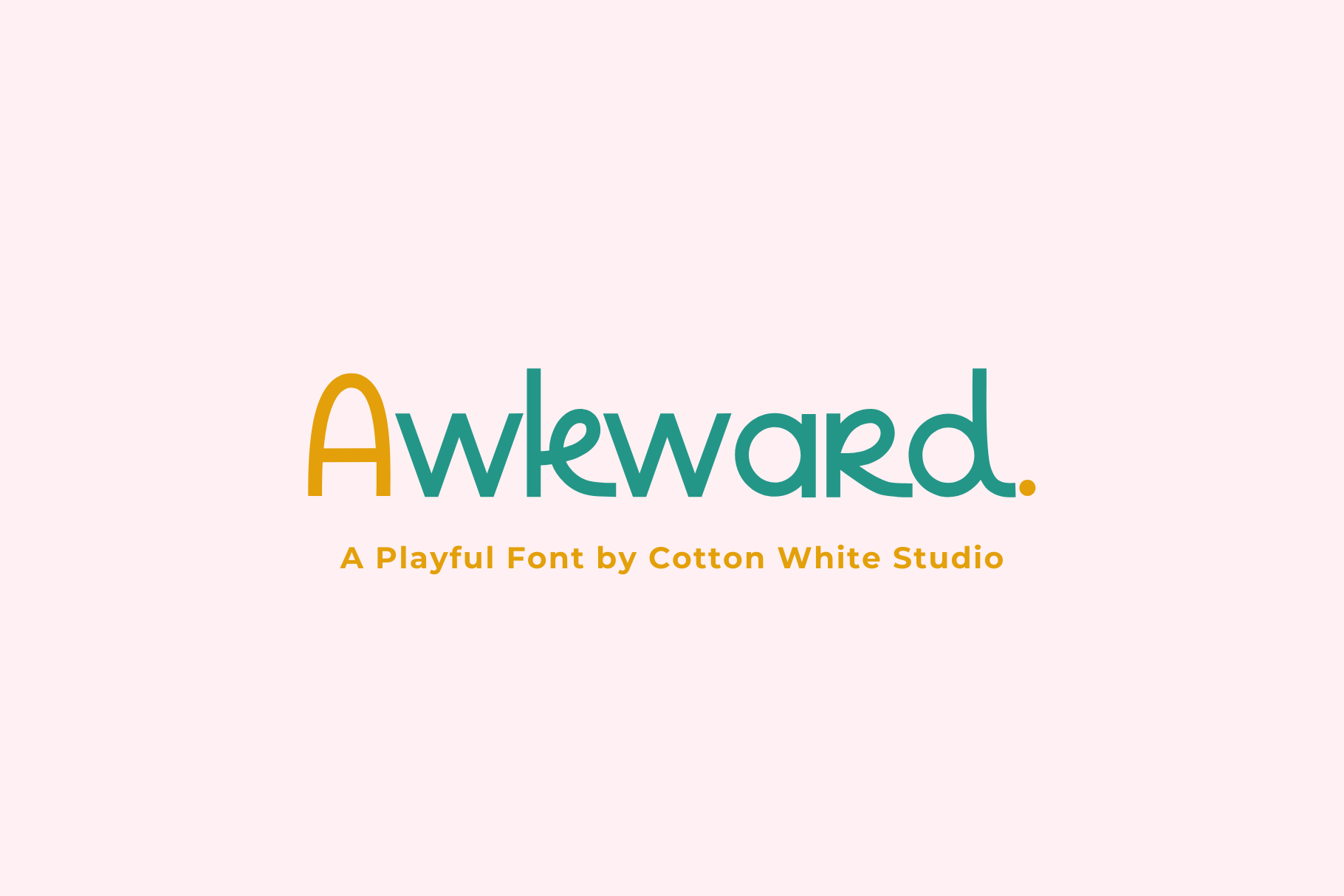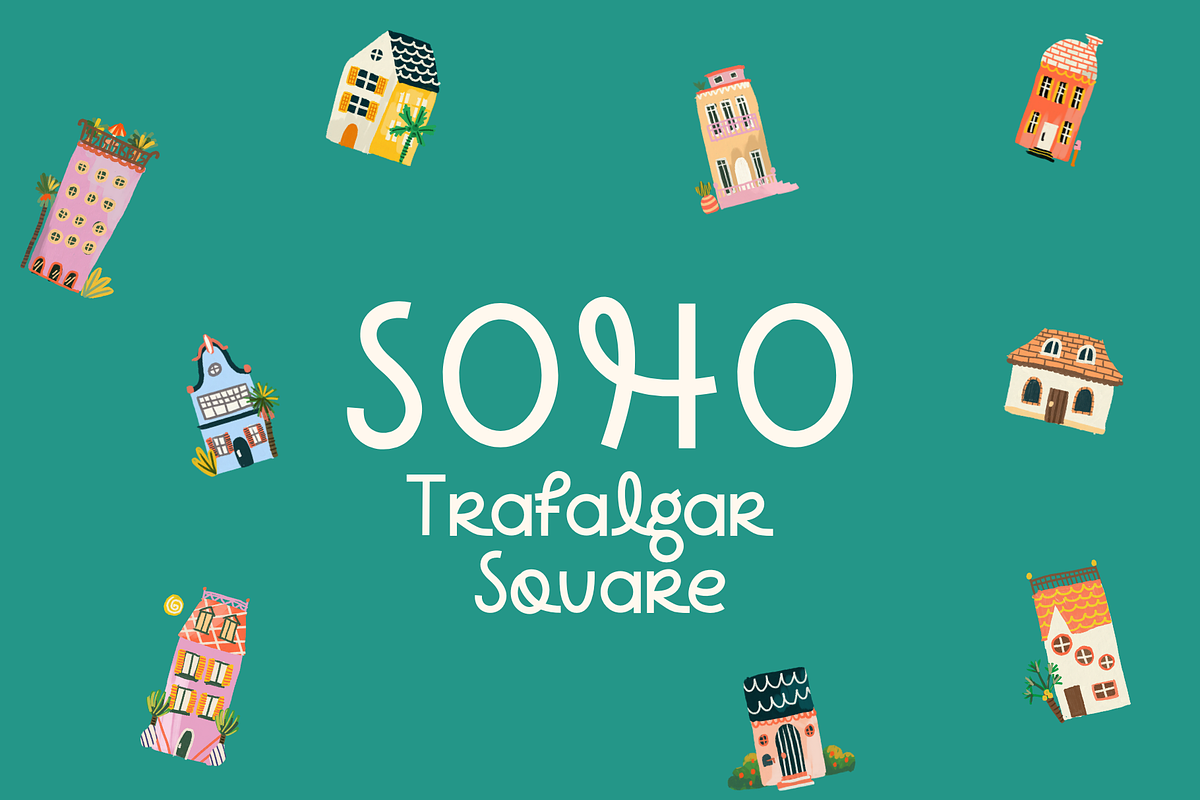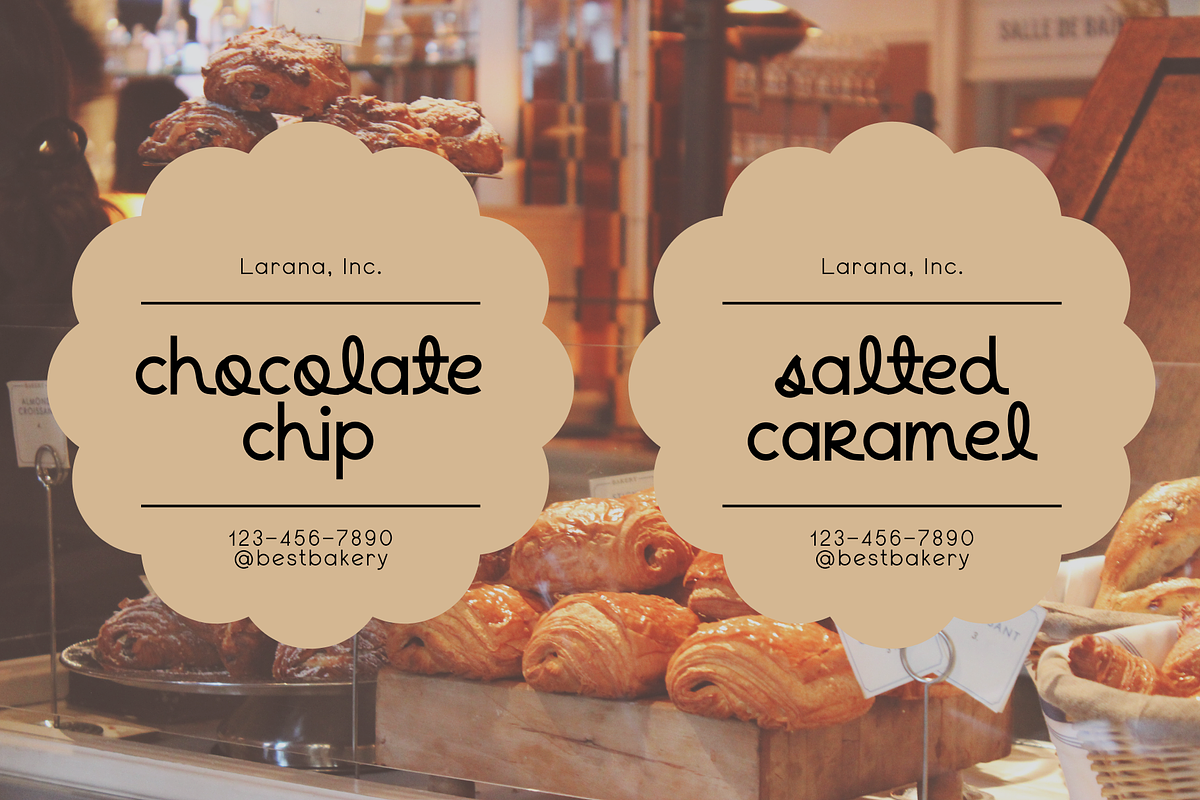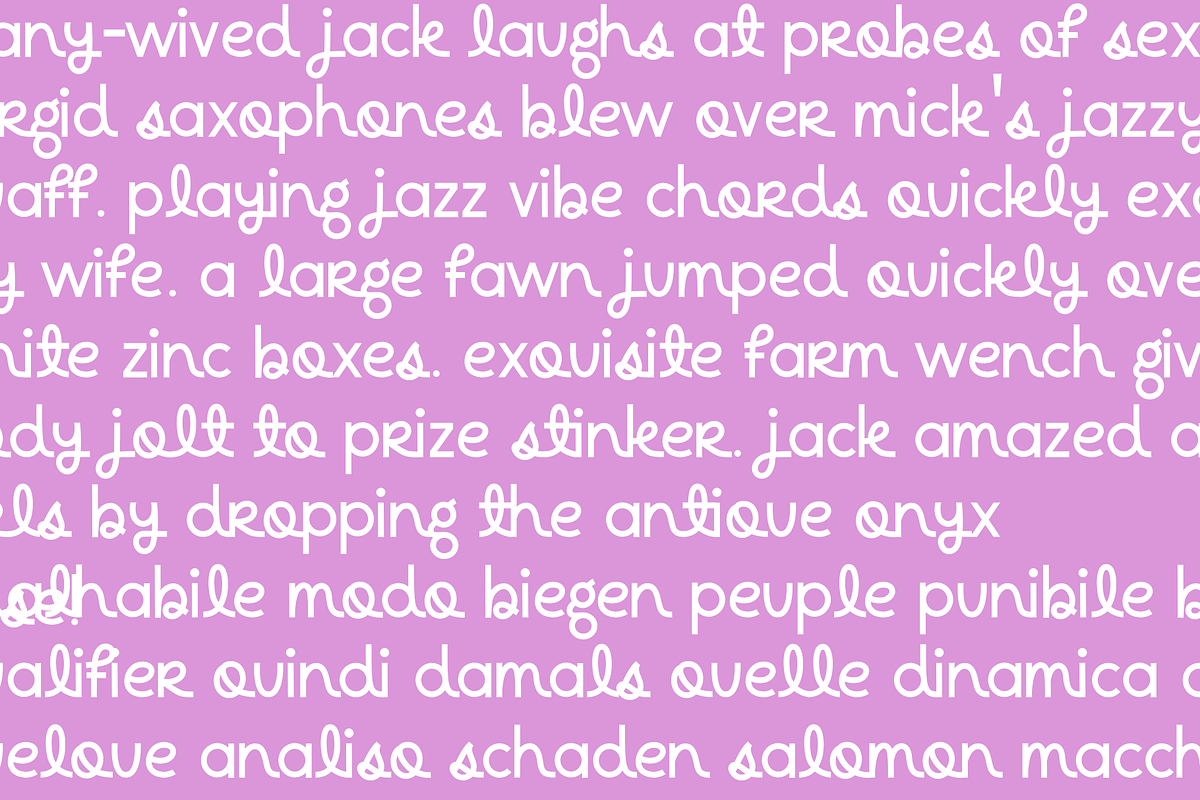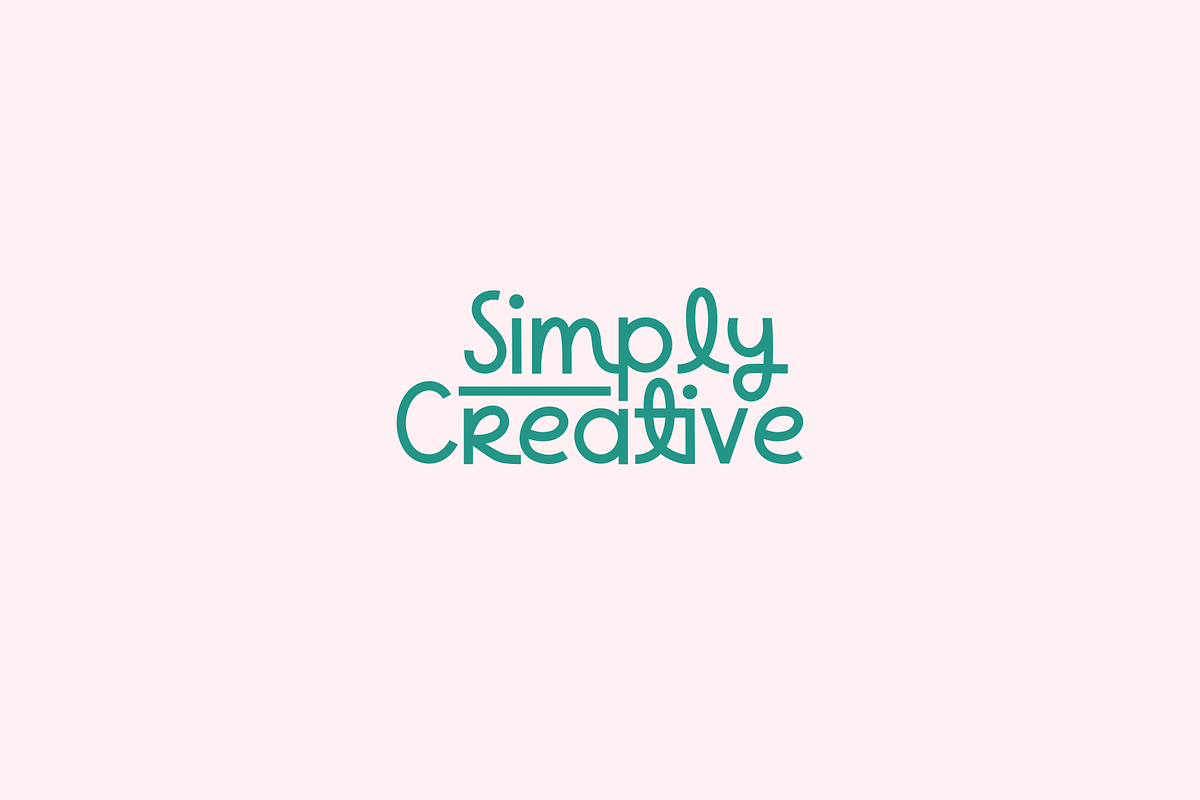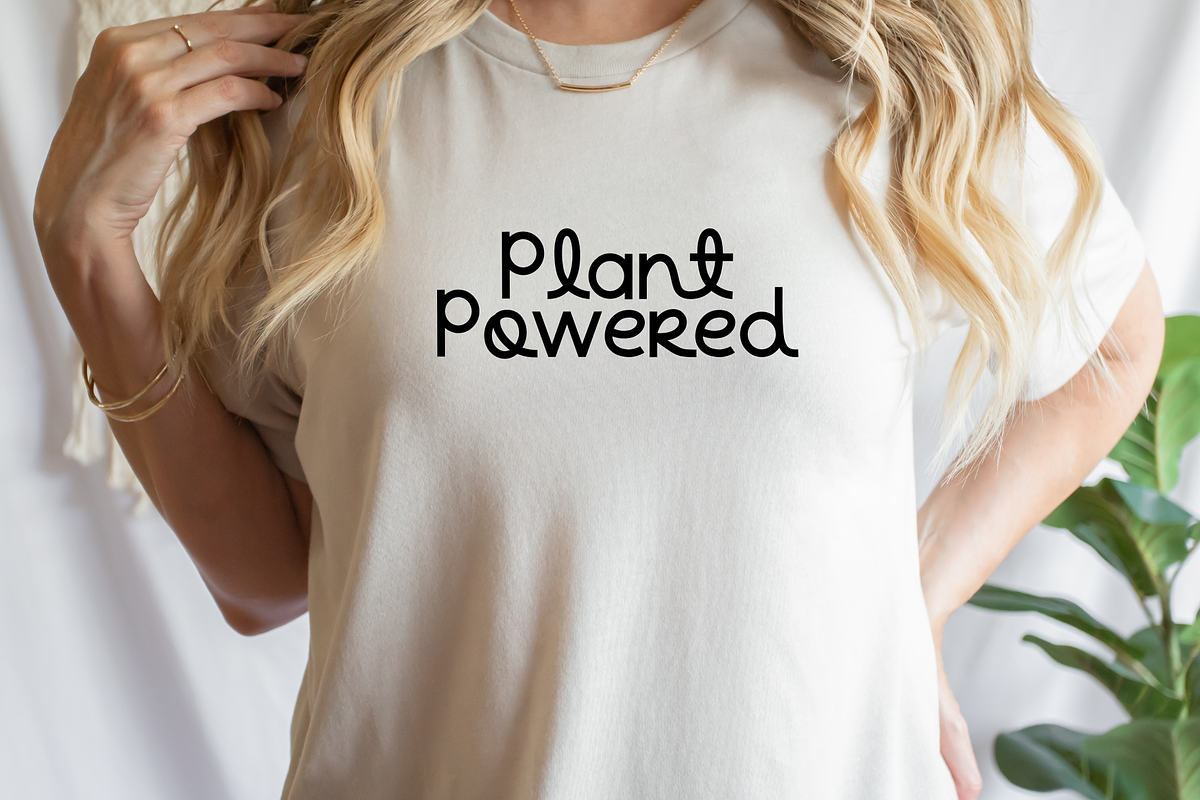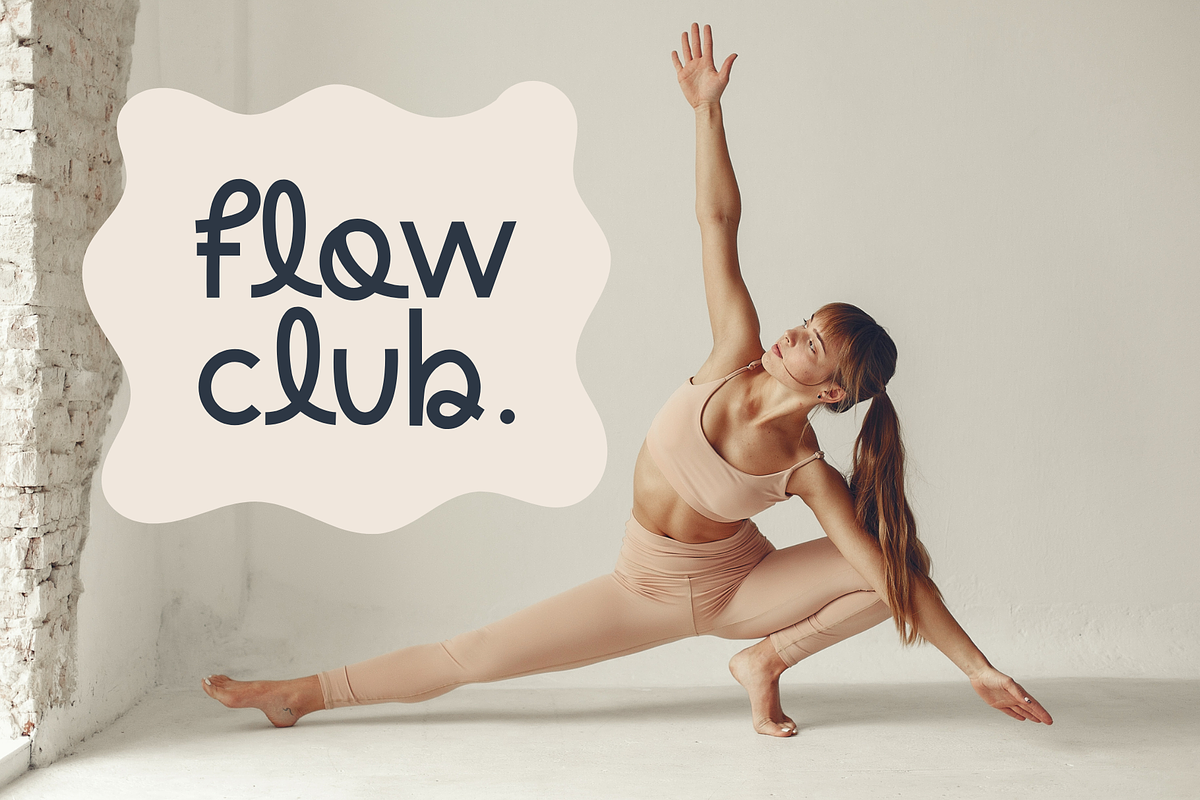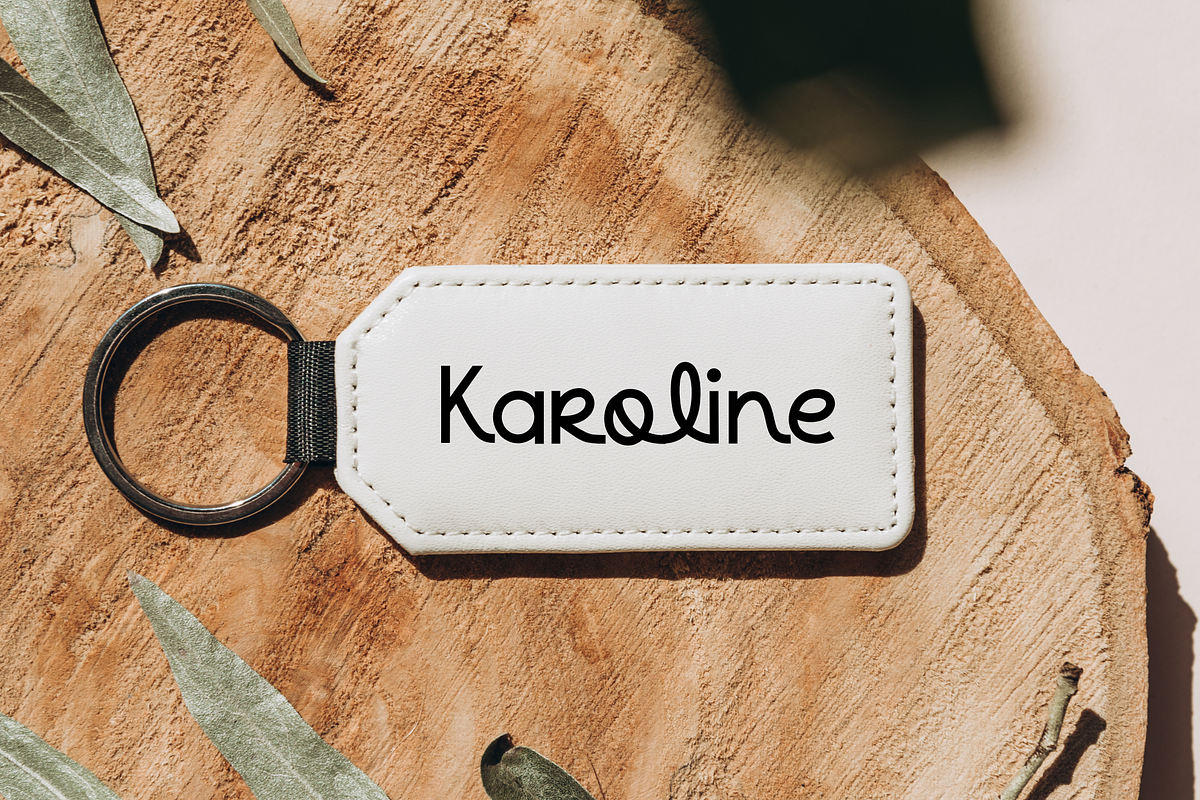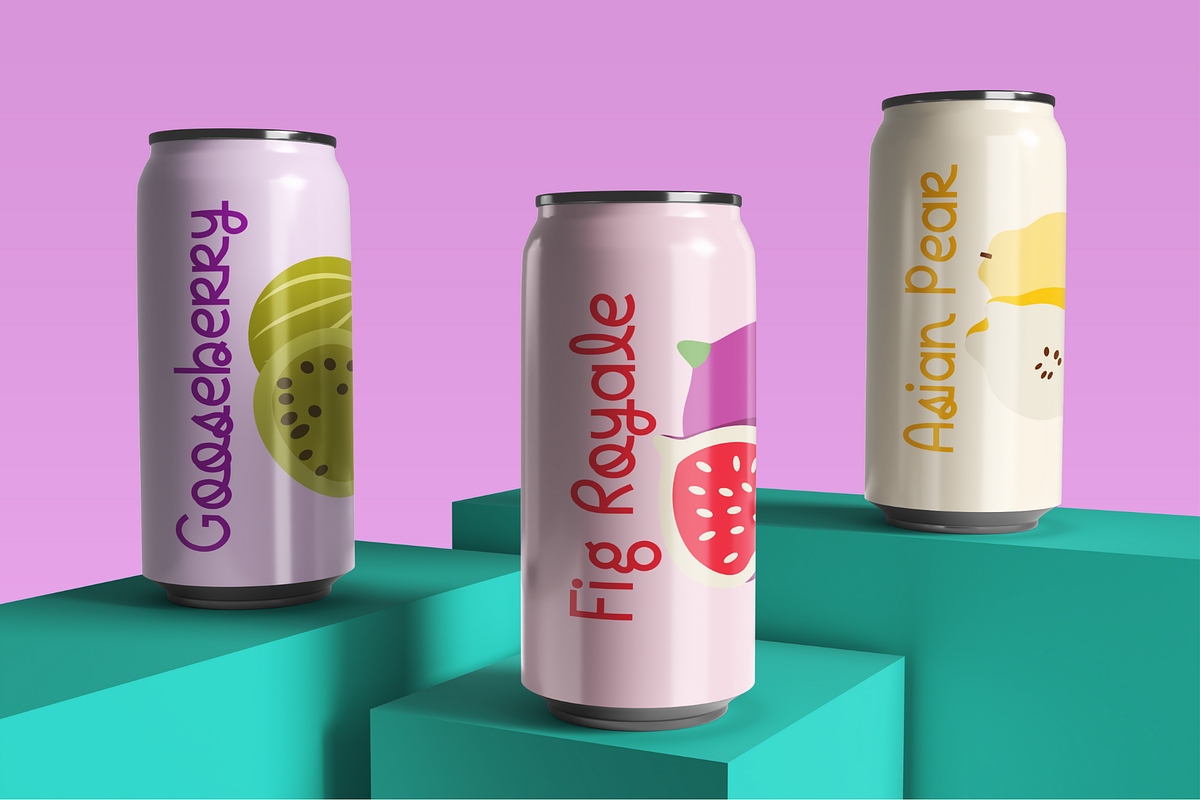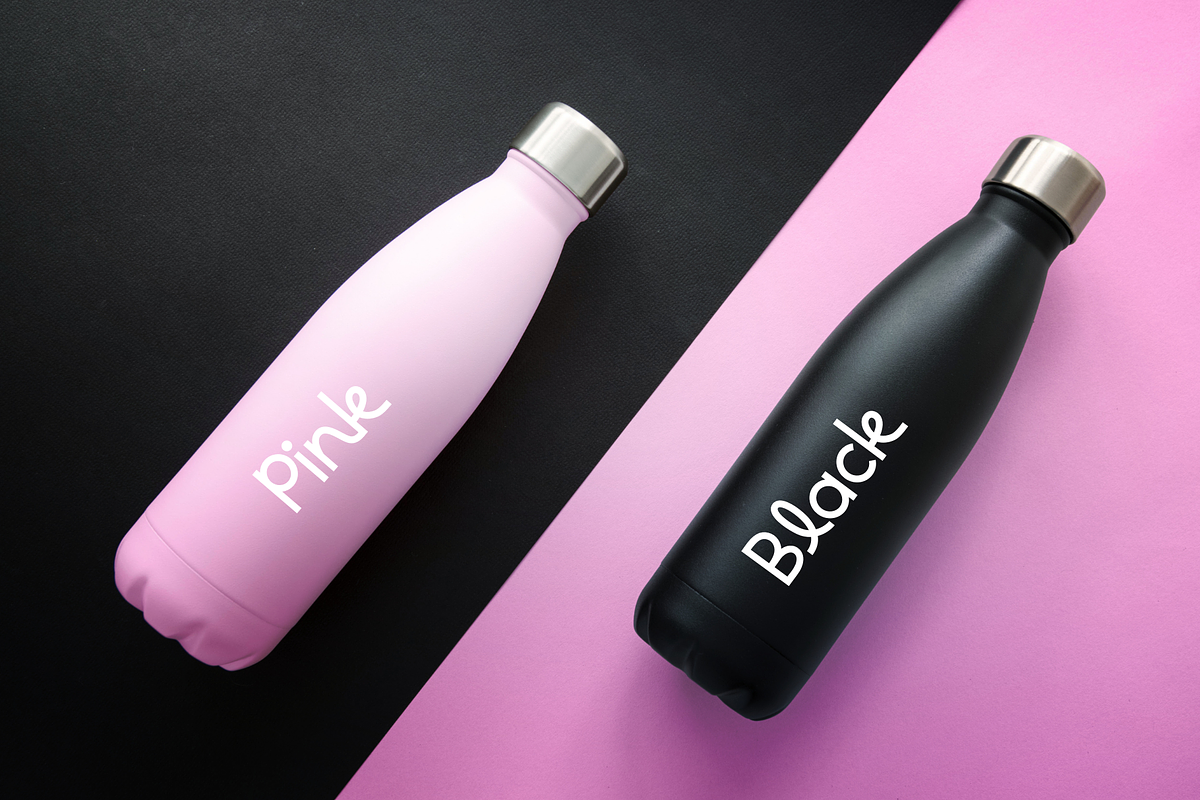
Awkward Cute Script Font
Add a touch of personality with the handwritten font Awkward! Full of character and charm, this playful font brings a fun, unique feel to any project. Whether you're designing a greeting card or refreshing your brand, it's perfect for creating something distinct and full of life.